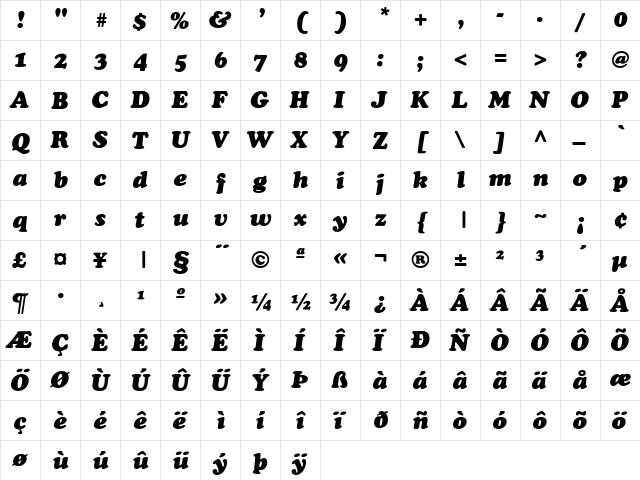
Cupertino Italic
Design Context for Cupertino Typeface
Cupertino offers clean, dependable letterforms without strong stylistic allegiance, making it a practical choice for designers who need flexibility. Its italic angle brings a sense of urgency and motion to the letterforms.
Pro Tip: Use Cupertino for emphasis, pull quotes, and subheadings where its slanted energy can add rhythm to the layout.